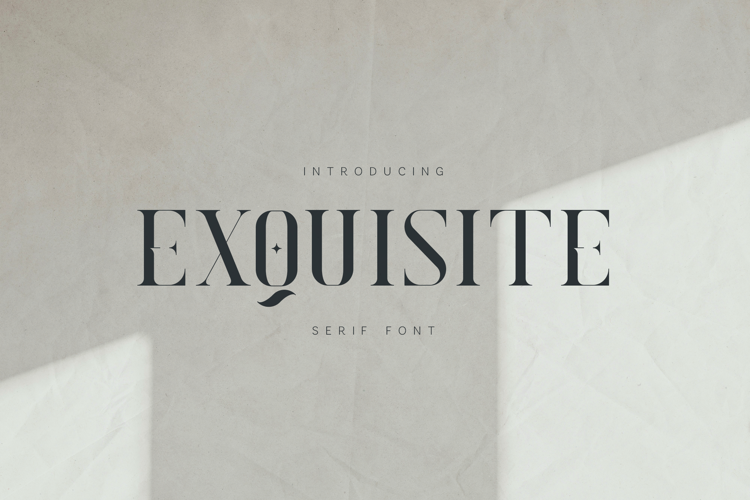
Exquisite
Introducing, this is our newest product, we call this product Exquisite,
It looks amazing with sweet touches and beautiful curves in each letter. Exquisite fonts are perfect for: wedding invitations, fashion magazines, logos, signatures, photography, watermarks, wall displays, social media,